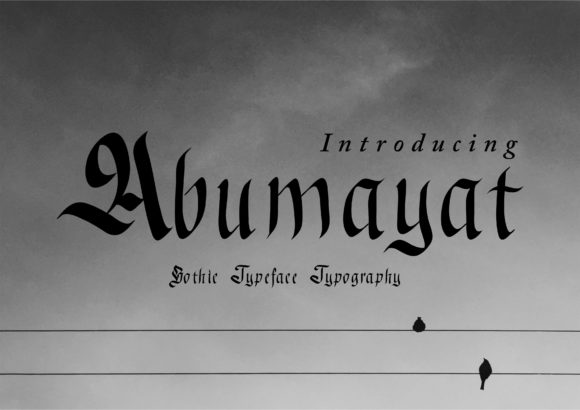
The Dark Allure of Abumayat Font: A Designer’s Delight
I still remember the night I stumbled upon the Abumayat font while working on a gothic-themed project for a client. I had been searching for the perfect blackletter script for hours, but nothing seemed to fit the dark, mysterious vibe I was going for. That’s when I came across Abumayat, and it was love at first sight! ✨ The font’s unique blend of elegance and darkness instantly captured the essence of the project, and I knew I had found the perfect match.
An Honest Review of Abumayat Font
What I Love About Abumayat
- 💀 **Mysterious and dark aesthetic**: Abumayat’s blackletter script is perfect for any metal head or gothic-themed project.
- ✅ **Highly legible**: Despite its dark and intricate design, Abumayat is surprisingly easy to read, making it perfect for body text.
- ✨ **Unique character set**: The font comes with a wide range of characters, including stylistic alternates and glyphs, allowing for endless creative possibilities.
While Abumayat is an amazing font, it’s not without its quirks. 🤔 Here are a few things to keep in mind:
- ⚠️ **Limited use in formal contexts**: Abumayat’s dark and mysterious aesthetic may not be suitable for formal or professional projects.
- ⚠️ **May not work well in small sizes**: Due to its intricate design, Abumayat may not be the best choice for small font sizes or low-resolution applications.
The Backstory of Abumayat Font
The Abumayat font was inspired by the dark and mysterious world of metal music and gothic culture. Its creator, a passionate designer and metalhead, wanted to create a font that captured the essence of this subculture. The result is a unique and captivating blackletter script that’s perfect for any project that requires a touch of darkness and elegance.
Q: What is the Abumayat font inspired by?
A: Abumayat is inspired by the dark and mysterious world of metal music and gothic culture.
Q: Is Abumayat suitable for formal projects?
A: No, Abumayat’s dark and mysterious aesthetic may not be suitable for formal or professional projects.
Q: Does Abumayat support OpenType features?
A: Yes, Abumayat supports OpenType features, including stylistic alternates and glyphs.